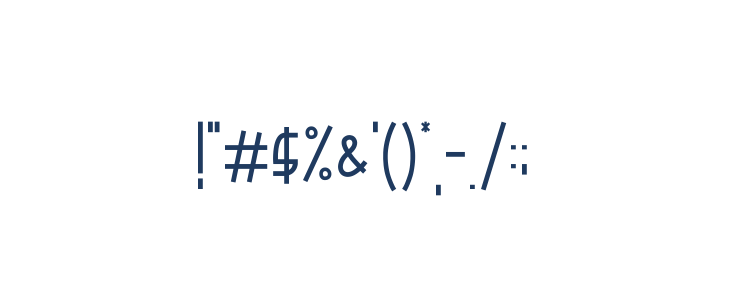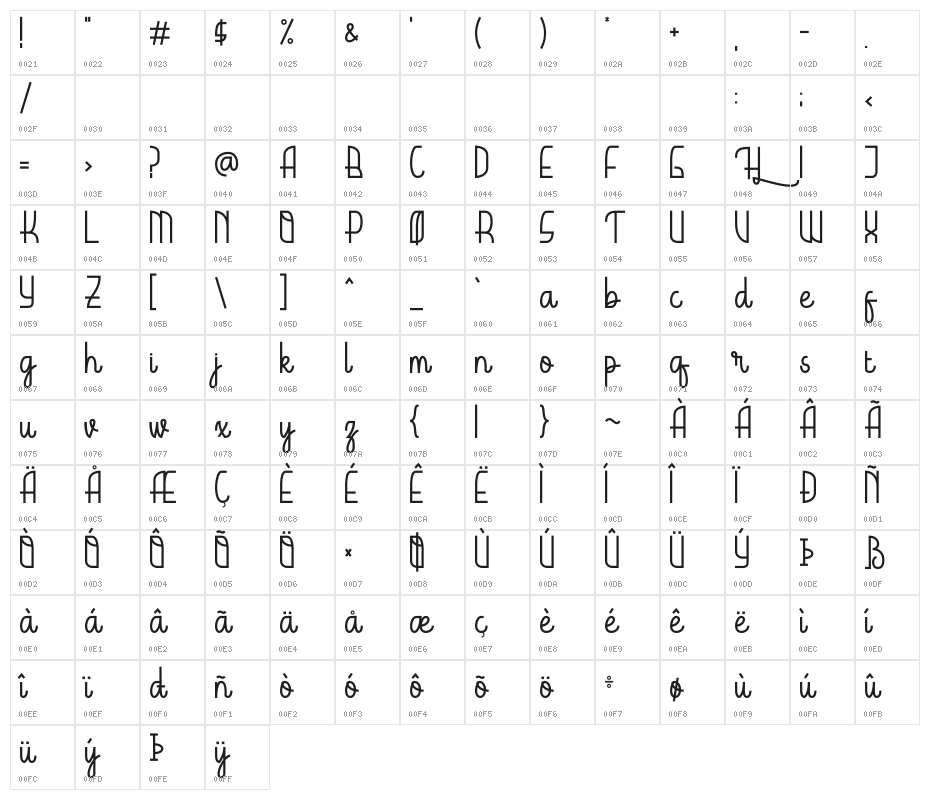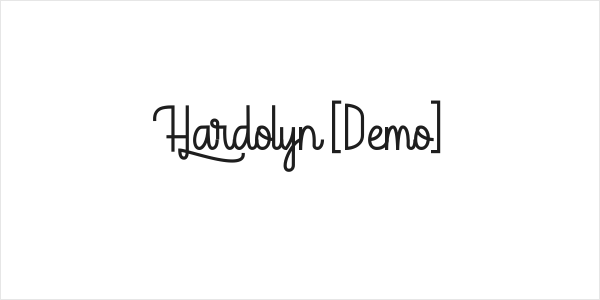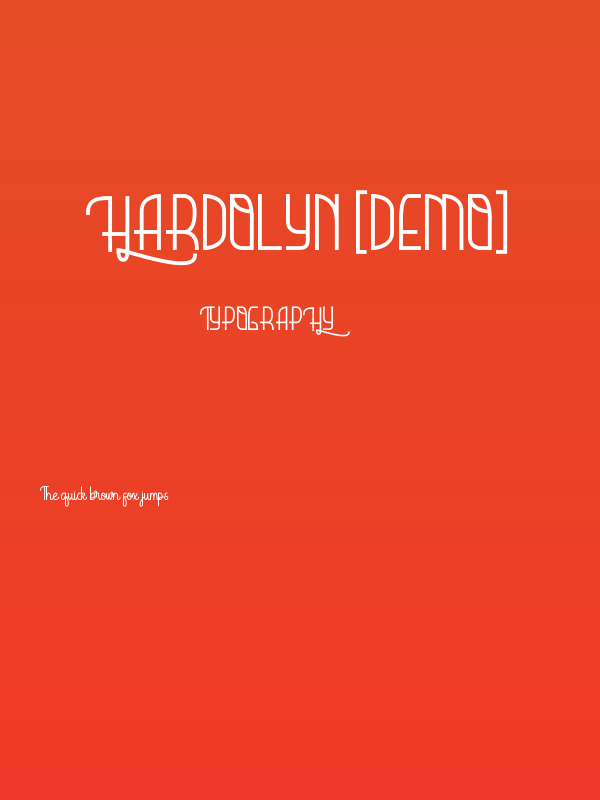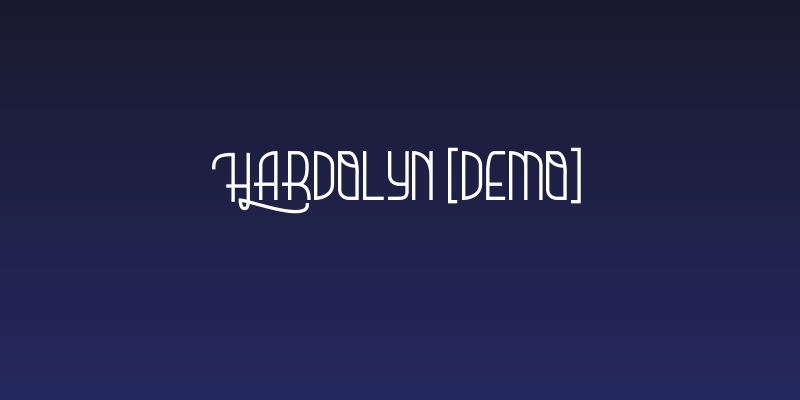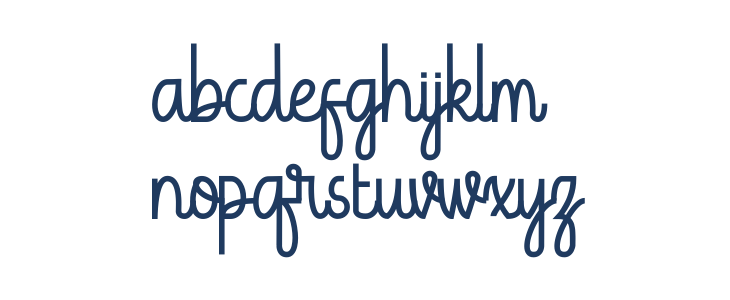
Hardolyn [Demo] Font
Hardolyn [Demo] Description
This font features a unique blend of geometric and script elements, creating a distinctive and modern look. The uppercase letters are characterized by their tall, narrow forms with angular and straight lines, giving a futuristic and structured appearance. The lowercase letters, in contrast, exhibit a more fluid and cursive style, with smooth curves and loops that add a touch of elegance and playfulness. The combination of these two styles results in a versatile typeface that can be used for various design projects. The special characters maintain the geometric aesthetic, ensuring consistency across the font. Overall, this font stands out with its creative fusion of styles, making it suitable for eye-catching headlines and artistic designs.
| Proposed Projects | Ideal for branding, logos, posters, and creative design projects that require a modern and artistic touch. |